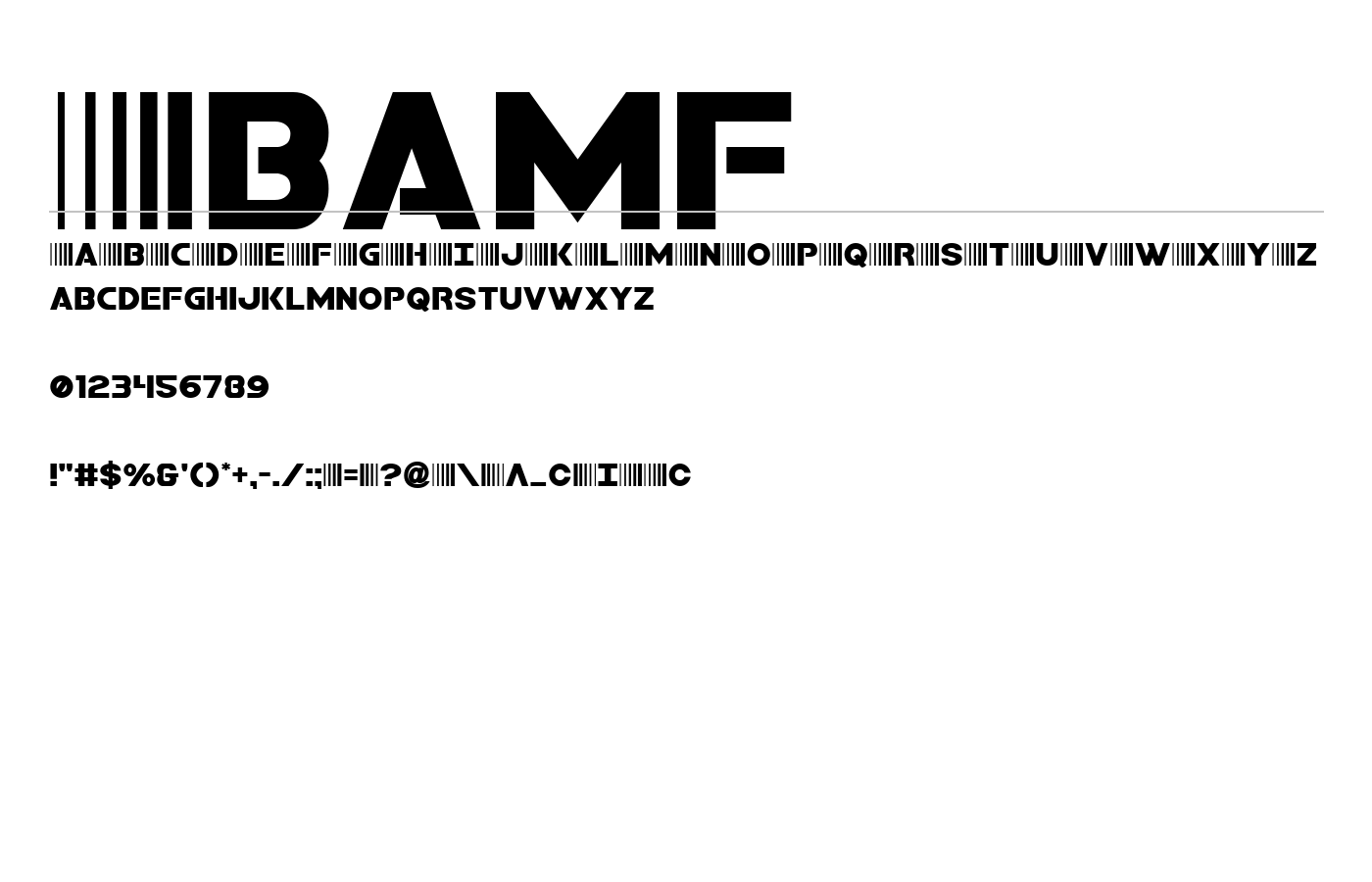
Bamf Font is a bold, geometric sans serif typeface with a strong, modern feel highlighted by its thick, even strokes and distinctive striped alternate style. It features uppercase letters with a clean, sturdy presence, making it ideal for impactful headlines, logos, and branding that demand boldness and clarity. This font's unique striped variation adds a dynamic and playful touch, perfect for creative projects needing a contemporary and eye-catching look.
Bamf Font
About Bamf Font